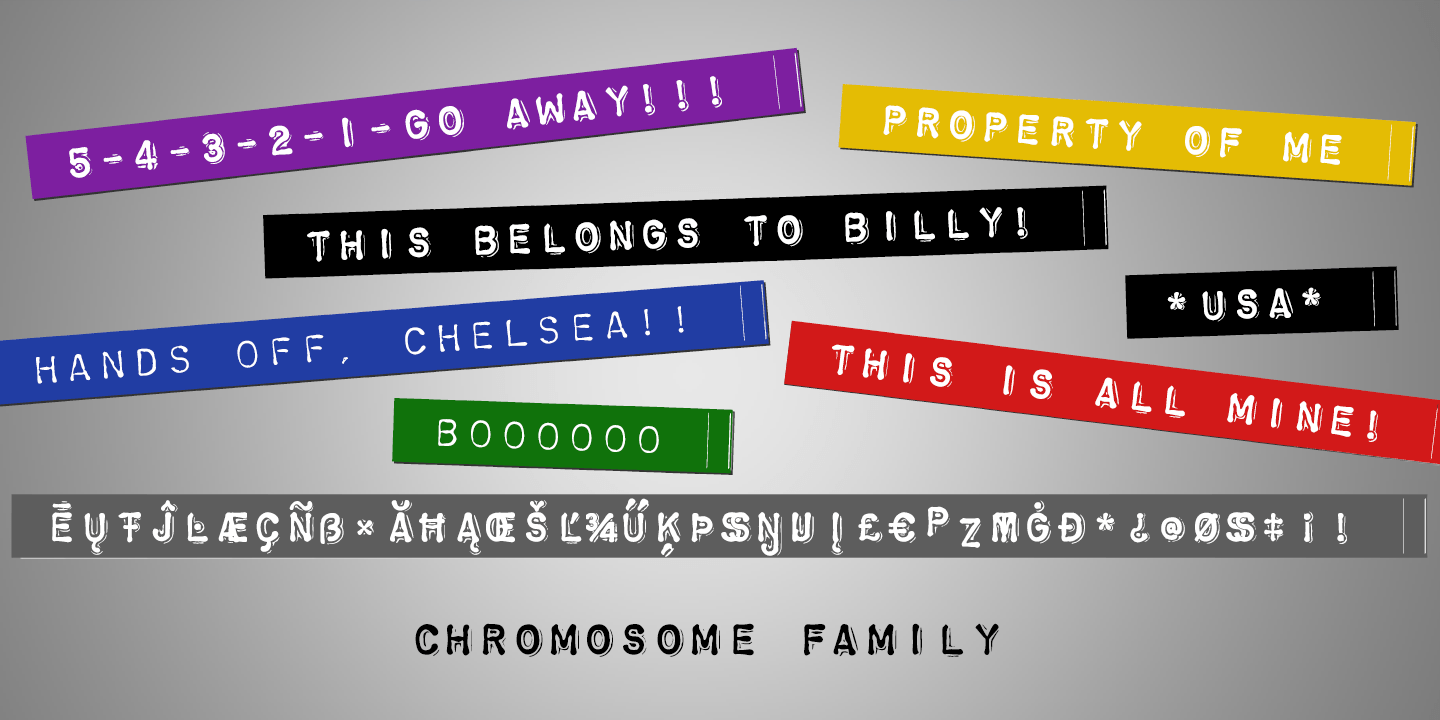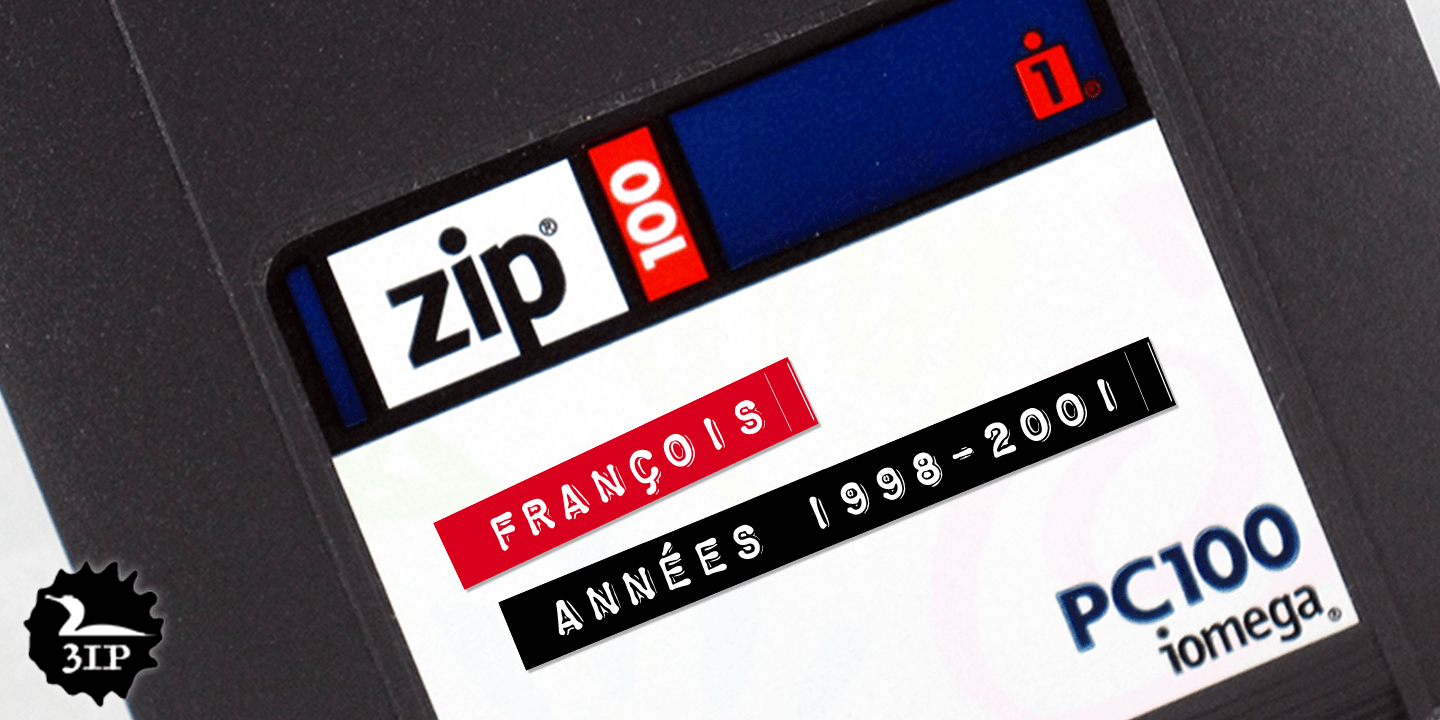
About Chromosome
It hit me one day that the \’60s-vintage labelmaker I had lying around might make an interesting display face. I began playing with it — clicking out letters at various pressures, scanning the results, going over the scans in a vector-graphics program.…